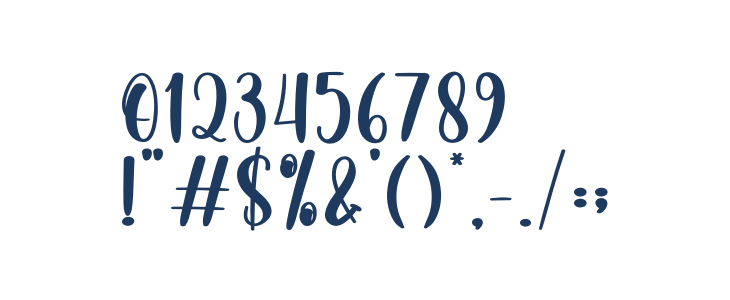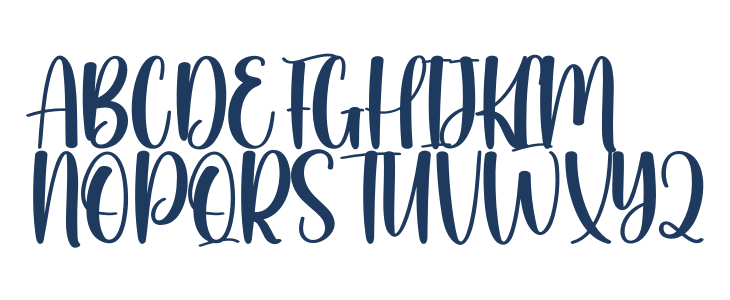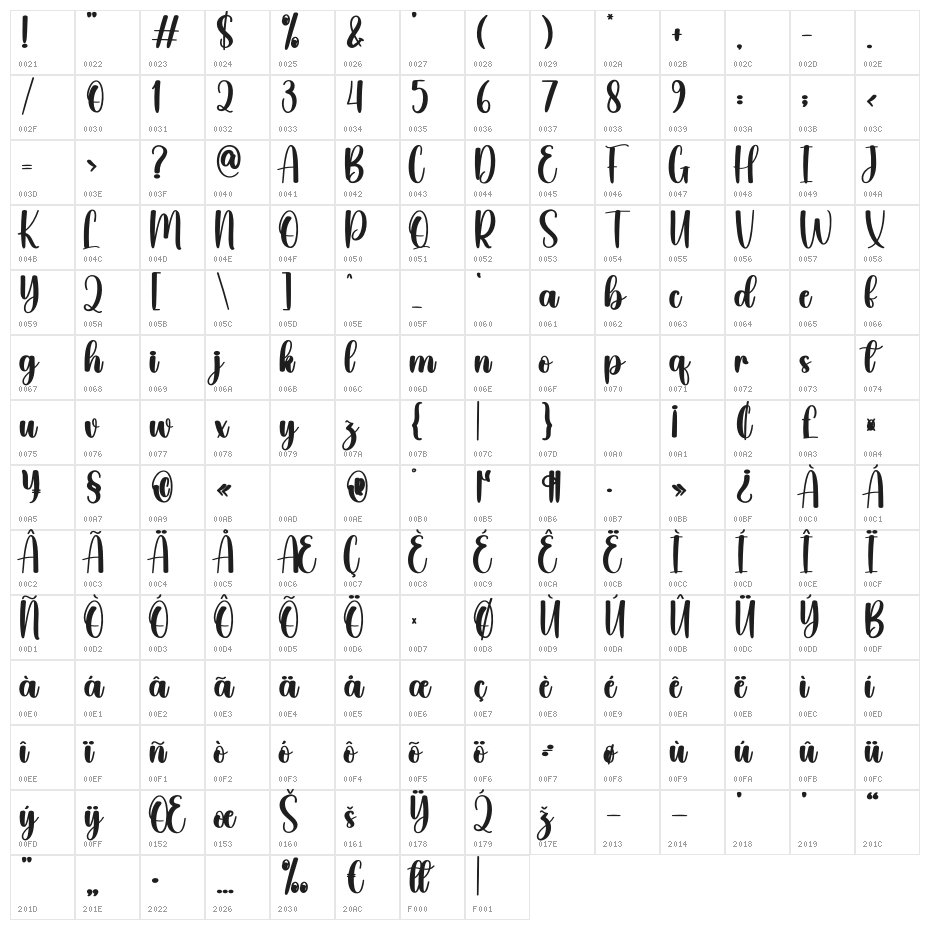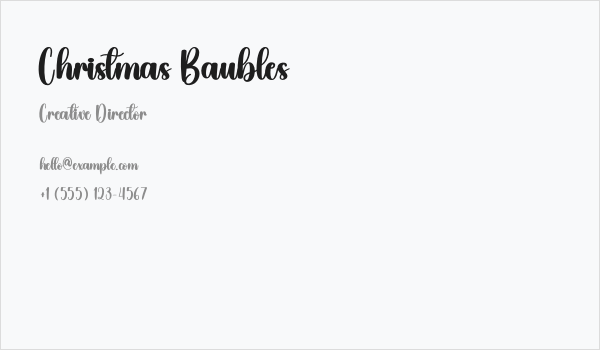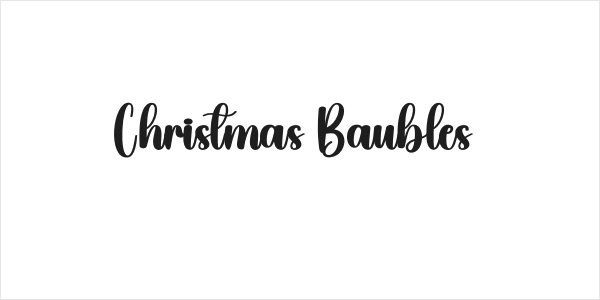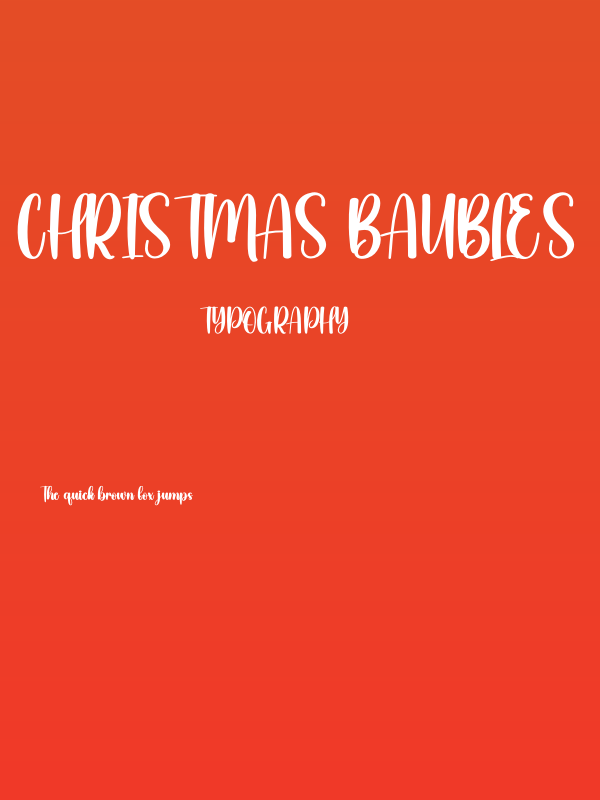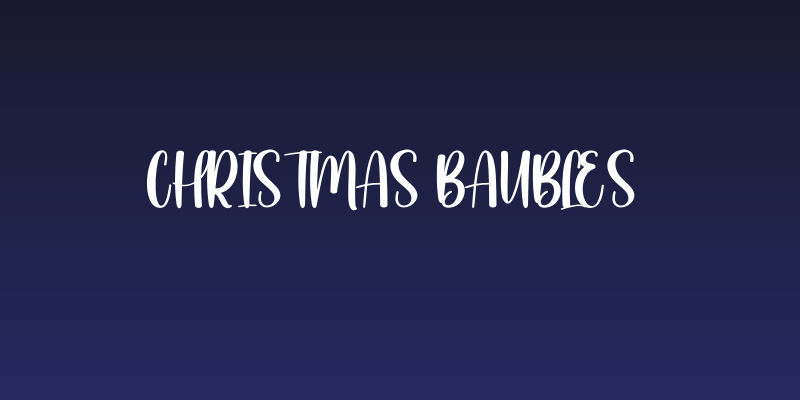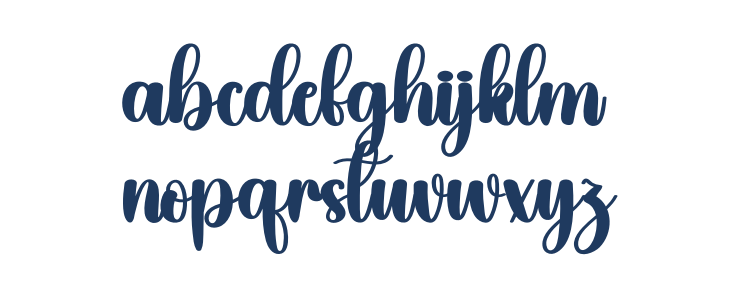
Christmas Baubles Font
Christmas Baubles Description
A playful, handwritten script font with bold, rounded strokes and a casual, festive feel. The uppercase letters are tall and narrow with slight slant, while the lowercase letters are more rounded and connected, mimicking brush or marker pen writing.
Overall StyleDecorative, Festive, Playful
Use CaseHeadlines, Greeting cards, Logos, Posters
Proposed ProjectsHoliday cards, invitations, festive branding, social media graphics, event posters.